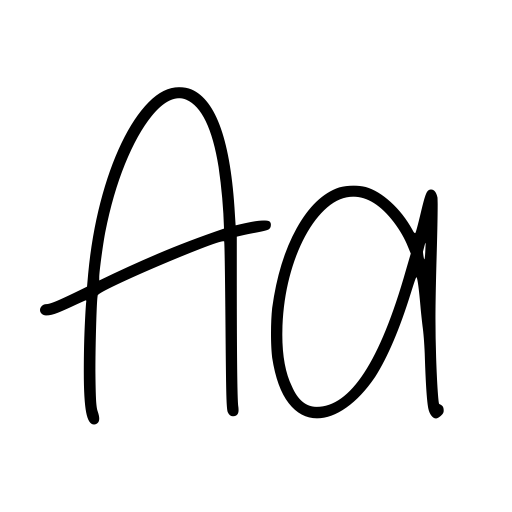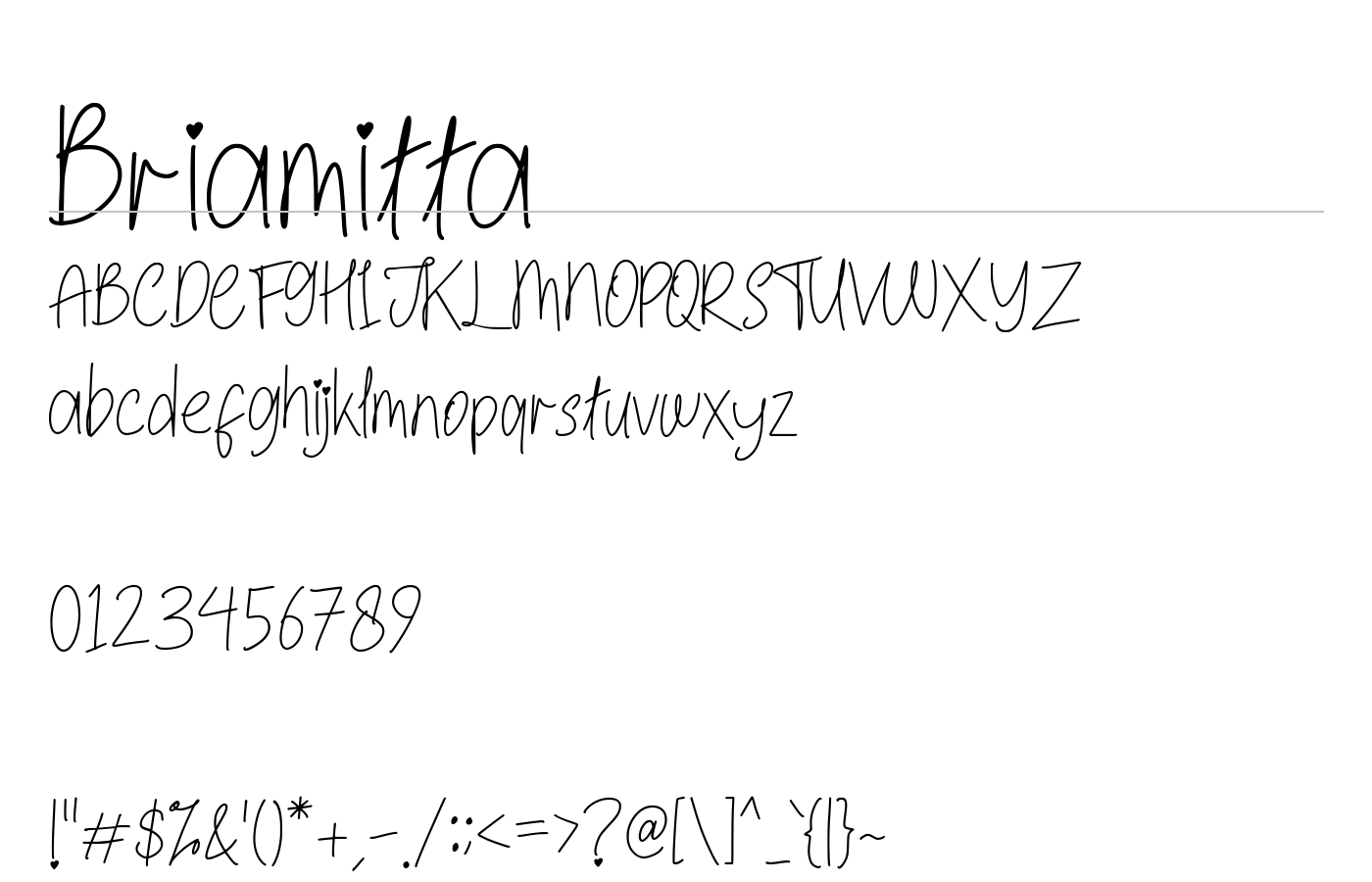
Briamitta is a playful and delicate handwritten font with thin, elongated strokes and charming heart details on the dots of the lowercase “i” and “j.” Its tall, slender letterforms and casual, slightly irregular style give it a personal, friendly feel, making it perfect for creative projects, invitations, and branding that seeks a whimsical, approachable touch. This font works best in large sizes for headlines or decorative use where its unique personality can truly shine.
Briamitta Font
About Briamitta Font